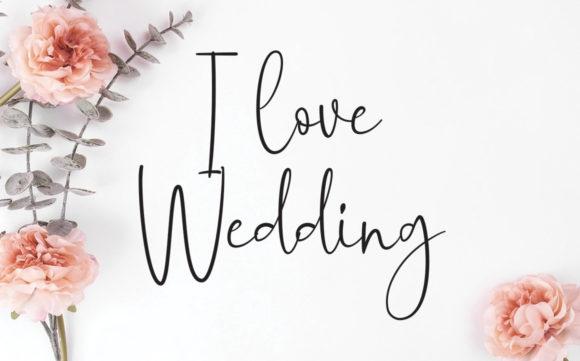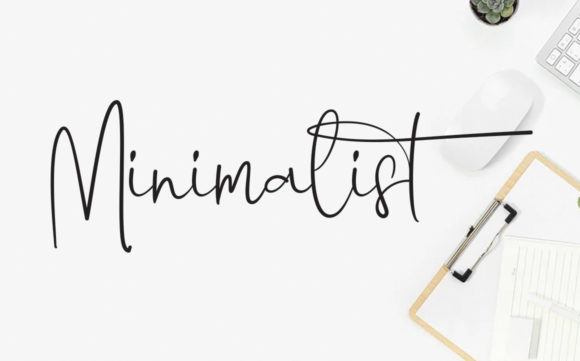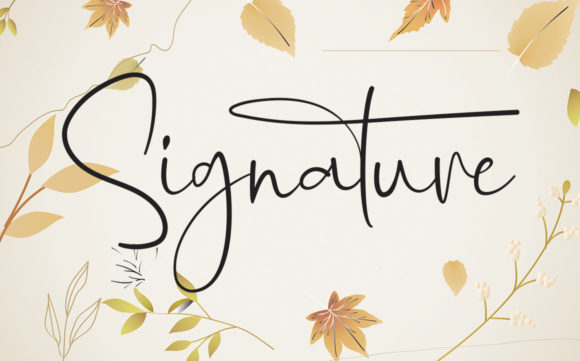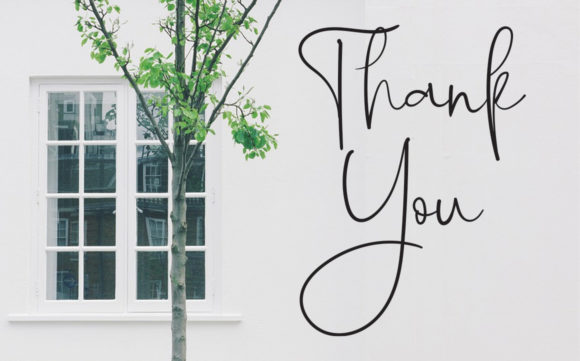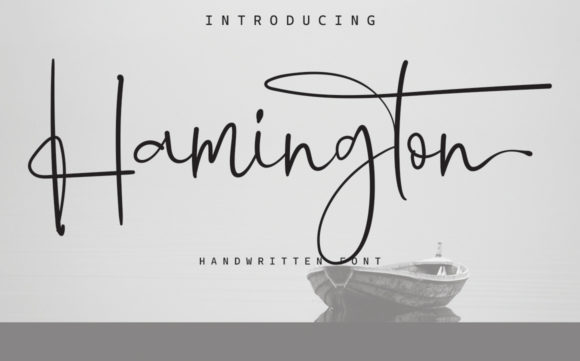
Introducing Hamington Font: The Ultimate Choice for Creative Typography
Are you a designer, crafty person, or simply someone who appreciates beautiful typography? Look no further than the Hamington Font, a stunning slim and casual handwritten font that’s perfect for a wide range of creative projects. In this article, we’ll dive into the world of Hamington Font, exploring its features, uses, and benefits, and why it’s a must-have for anyone looking to elevate their design game.
What is Hamington Font?
Hamington Font is a unique and elegant handwritten font that’s characterized by its slim and casual style. Its smooth, flowing lines and subtle curves make it perfect for creating visually appealing designs that exude a sense of sophistication and charm. Whether you’re working on a personal project or a professional one, Hamington Font is sure to impress.
Features of Hamington Font
So, what makes Hamington Font so special? Here are some of its key features:
- Slim and casual style: Hamington Font boasts a slim and casual style that’s perfect for creating modern and elegant designs.
- Handwritten feel: The font’s handwritten feel adds a touch of personality and warmth to any design.
- Highly versatile: Hamington Font can be used for a wide range of projects, from wall displays and wedding invitations to social media posts and product packaging.
- Easily readable: Despite its slim style, Hamington Font is highly readable, making it perfect for both digital and print designs.
Uses of Hamington Font
So, what can you use Hamington Font for? The possibilities are endless! Here are some ideas to get you started:
- Wall displays: Create stunning wall displays with Hamington Font, perfect for showcasing quotes, lyrics, or inspiring messages.
- Wedding invitations: Add a touch of elegance to your wedding invitations with Hamington Font, making them truly unforgettable.
- Social media post logos: Use Hamington Font to create eye-catching social media post logos that will make your brand stand out.
- Advertisements: Create effective advertisements with Hamington Font, perfect for promoting products or services.
- Product packaging: Elevate your product packaging with Hamington Font, adding a touch of sophistication and style.
- Product designs: Use Hamington Font to create stunning product designs, from labels to watermarks.
- Invitations: Create beautiful invitations for any occasion, from birthdays to graduations.
- Stationery: Add a touch of elegance to your stationery with Hamington Font, perfect for letters, cards, and more.
Benefits of Using Hamington Font
So, why should you choose Hamington Font for your next project? Here are some benefits to consider:
- Unique and creative: Hamington Font offers a unique and creative way to express yourself through typography.
- Highly versatile: The font’s versatility means you can use it for a wide range of projects, from digital to print.
- Easily readable: Hamington Font is highly readable, making it perfect for both digital and print designs.
- Time-saving: With Hamington Font, you can create stunning designs in no time, saving you time and effort.
In conclusion, Hamington Font is a stunning slim and casual handwritten font that’s perfect for designers, crafters, and anyone looking to elevate their design game. Its unique features, versatility, and readability make it a must-have for any creative project. Whether you’re working on a personal or professional project, Hamington Font is sure to impress. So why wait? Give Hamington Font a try today and experience the power of beautiful typography!